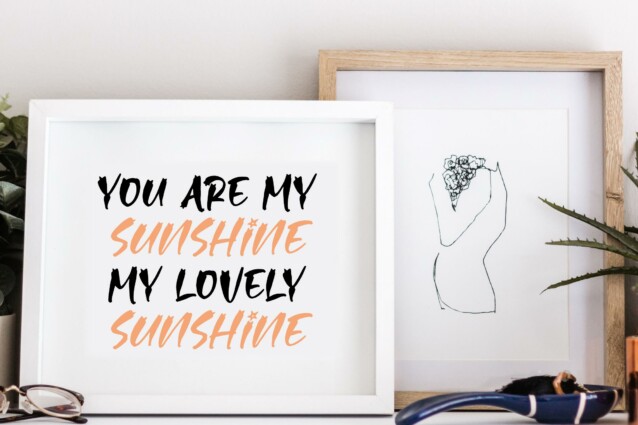
Starship Font
Starship Font is suitable for any projects such as logos, branding projects, homeware designs, product packaging, mugs, quotes, posters, shopping bags, t-shirts, book covers, name cards, invitation cards, greeting cards, labels, photography, watermark, special events, and all your other lovely projects that need a beautiful script taste.